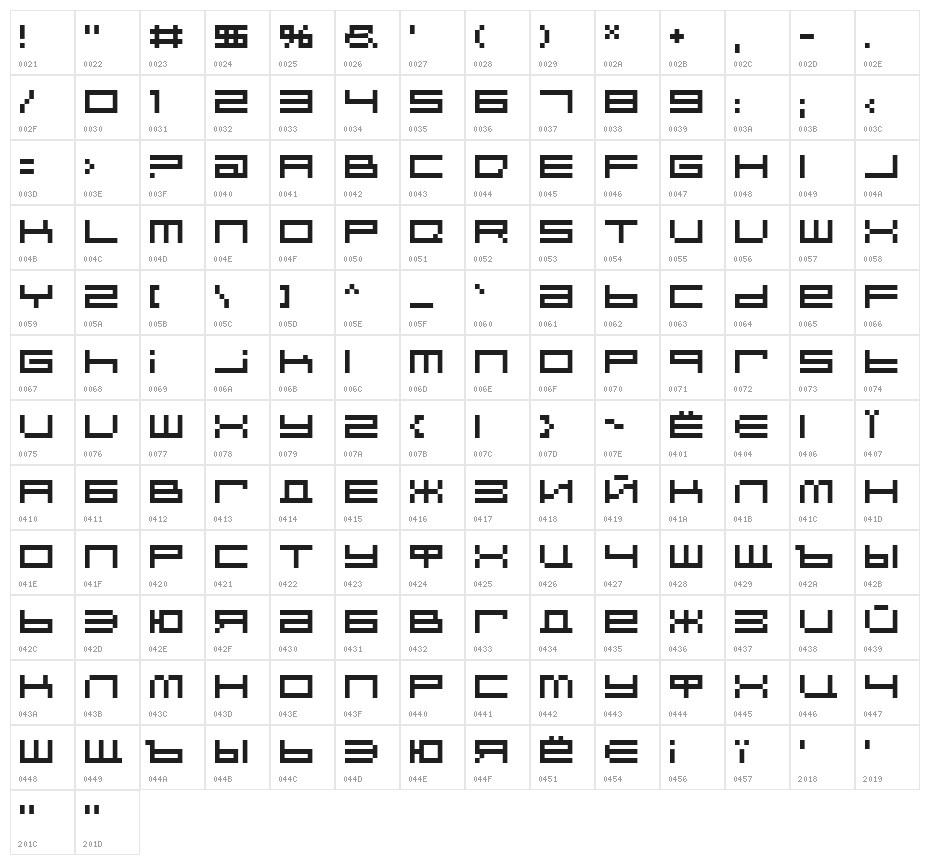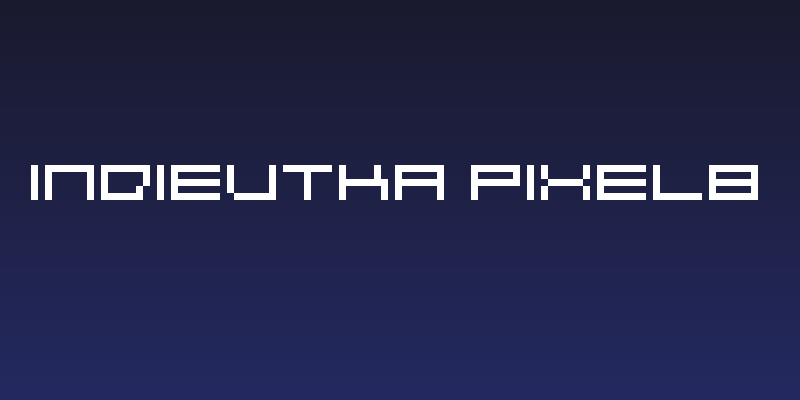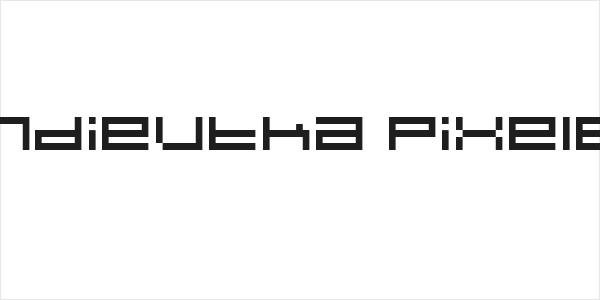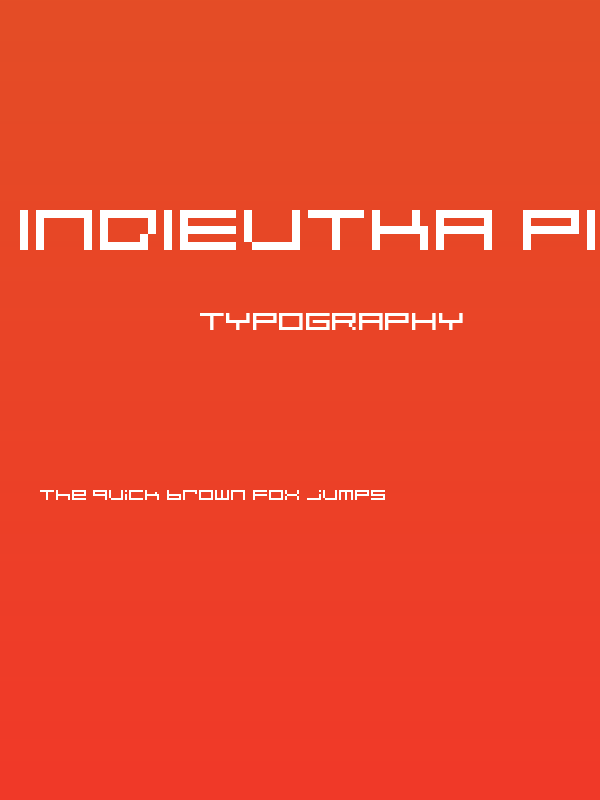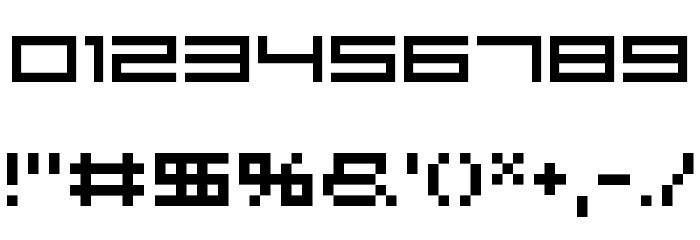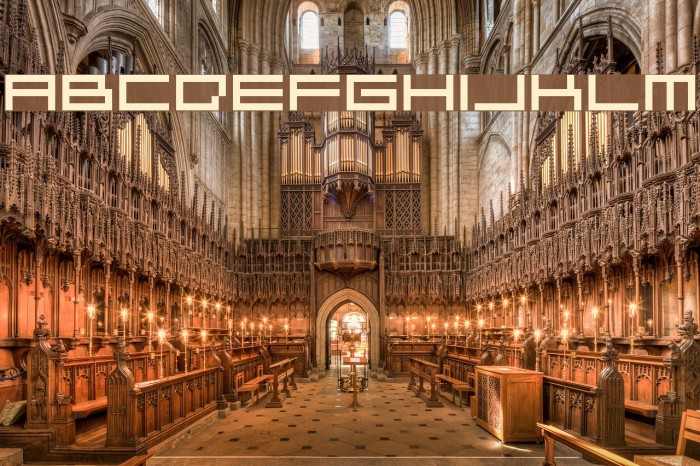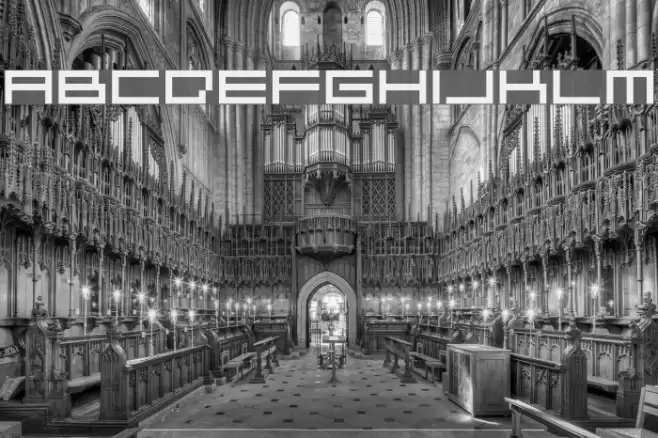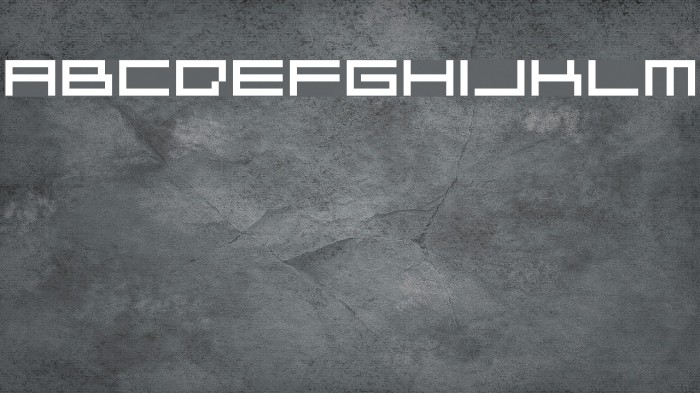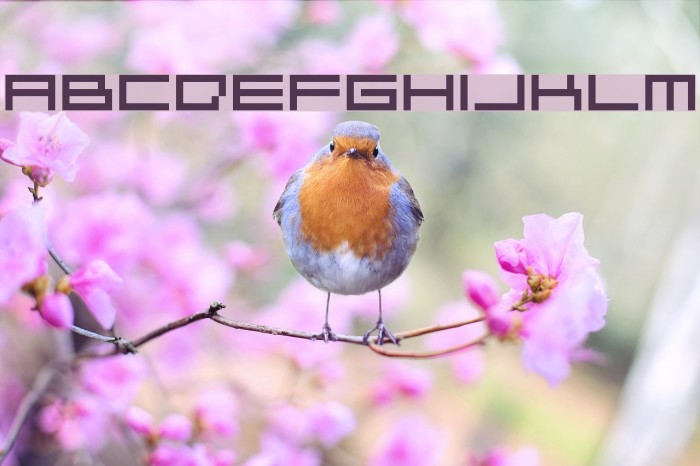
Indieutka Pixel8 Font
Indieutka Pixel8 Description
This font features a pixelated, blocky design reminiscent of retro digital displays and early video game graphics. Each character is composed of uniform square blocks, giving it a distinctly digital and geometric appearance. The uppercase and lowercase letters maintain a consistent height, contributing to a monospaced feel, although the font is not strictly monospaced. The numerals and special characters follow the same pixelated style, ensuring visual consistency across all glyphs. This design evokes a sense of nostalgia while maintaining a modern edge, making it suitable for projects that aim to blend retro aesthetics with contemporary design.
| Overall Style | Retro, Digital |
| Use Case | Headlines, Logos, Digital Displays |
| Proposed Projects | Ideal for video game design, digital art projects, retro-themed websites, and tech-related branding. |